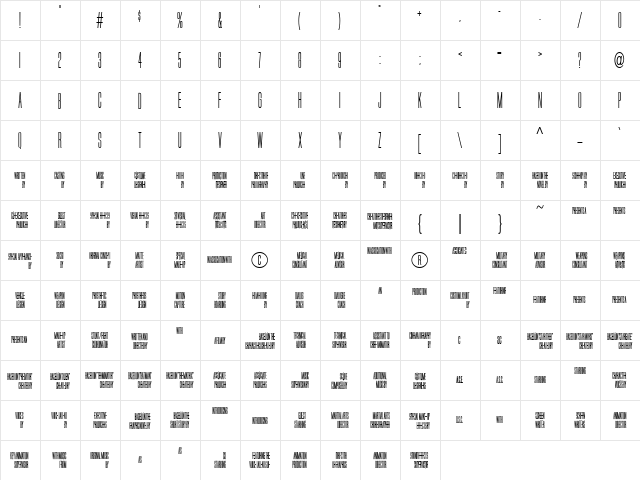
Top Billing Regular
Design Context for Top Billing Typeface
Top Billing takes a measured approach to typography — its balanced proportions and neutral character make it a reliable workhorse for both digital and print work.